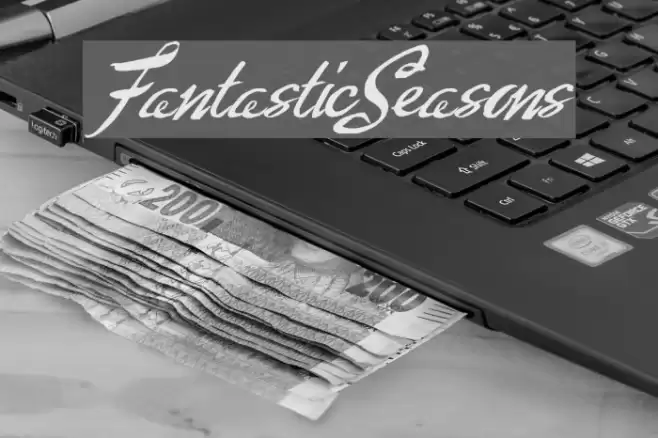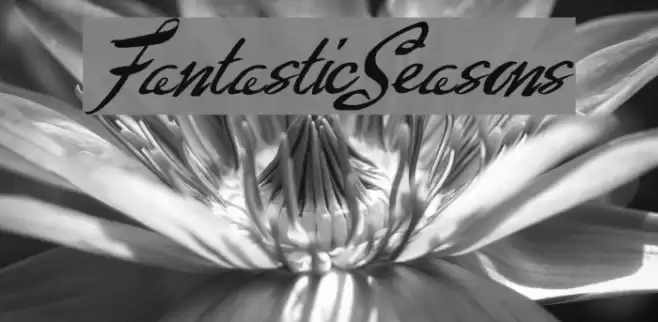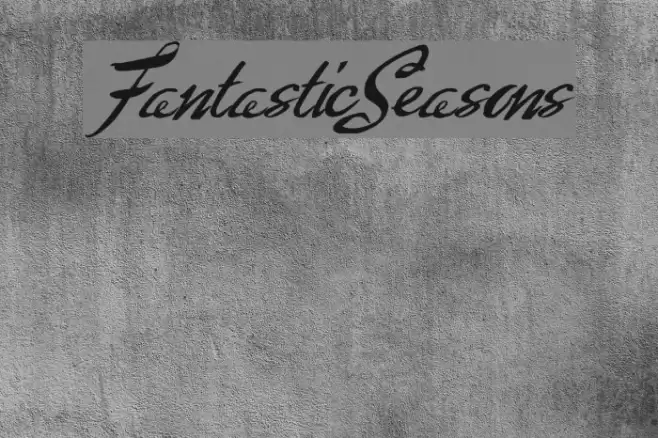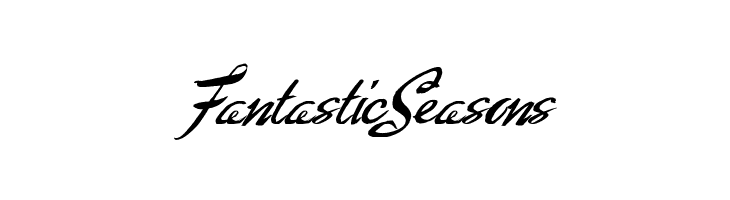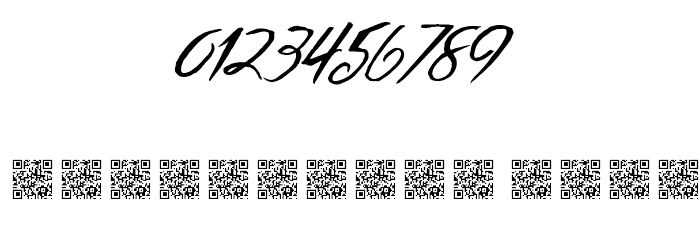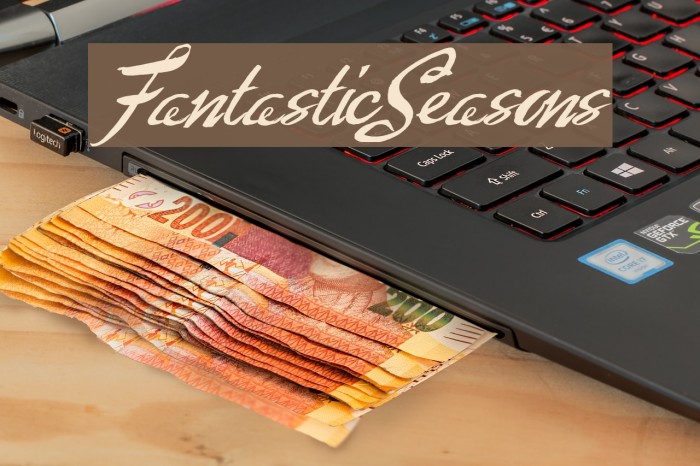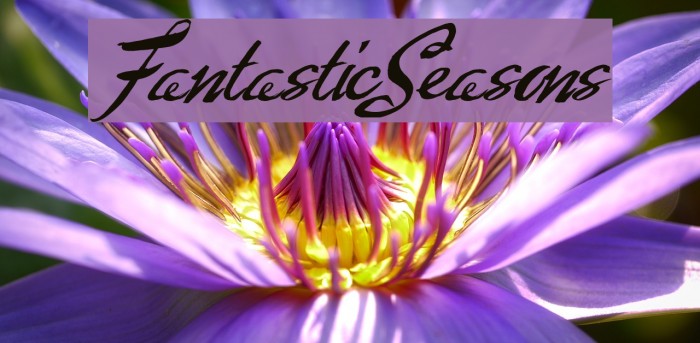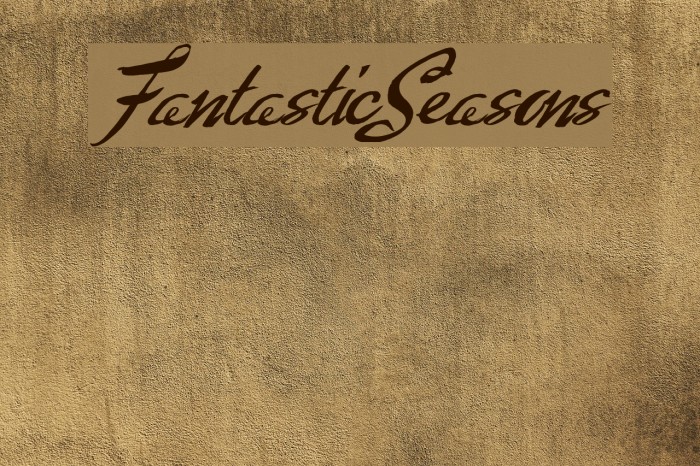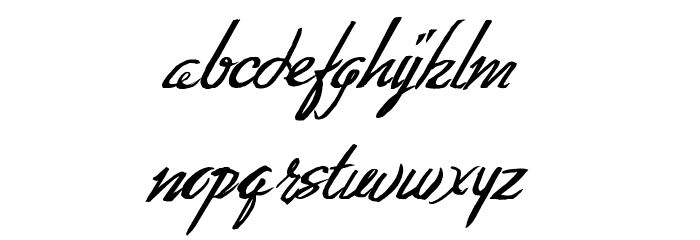
FantasticSeasons Font
FantasticSeasons Description
This font features a dynamic and elegant script style, characterized by its flowing, cursive letterforms. The uppercase letters are bold and sweeping, with dramatic flourishes that give a sense of movement and sophistication. The lowercase letters maintain a consistent style, offering a harmonious blend with the uppercase. The numerals are crafted with the same attention to detail, ensuring readability while maintaining the overall aesthetic. The font's design is reminiscent of classic calligraphy, making it suitable for projects that require a touch of elegance and tradition. It is ideal for invitations, branding, and decorative purposes.
A dynamic and elegant script font with flowing, cursive letterforms from Uncategorized fonts.
- Proposed Projects: Ideal for wedding invitations, luxury branding, and decorative signage.
- Overall Style: Classic
- Use Case: Logos, Invitations, Decorative text